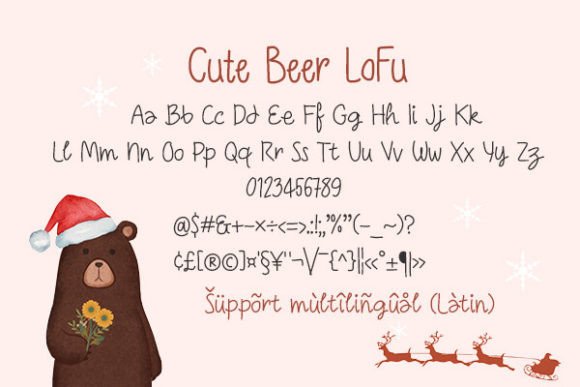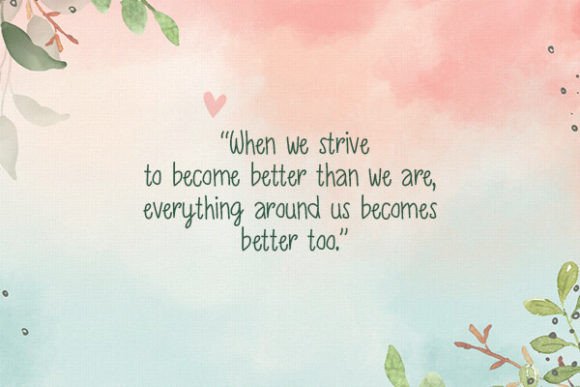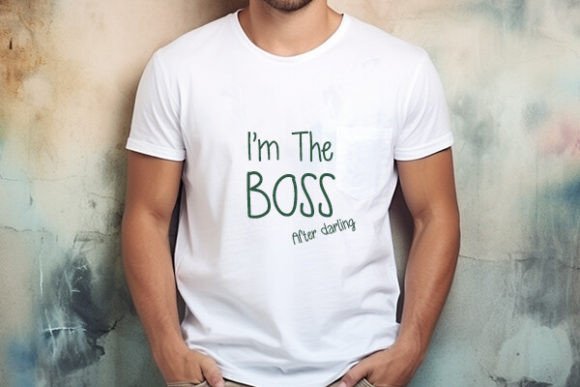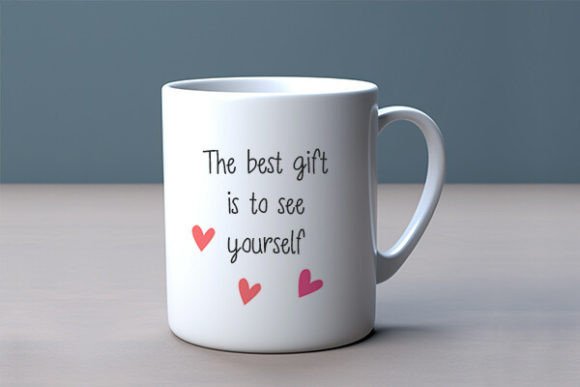
Introduction to Cute Bear Lofu Font
Cute Bear LoFu is designed in a cute and playful sans serif font style.
It’s cheerful and a modern It would be an awsome addition to your fun projects and creative designs.
Key Features of Cute Bear Lofu Font
Why Choose Cute Bear Lofu Font?
Cute Bear Lofu Font offers exceptional quality and versatility, making it a valuable addition to your design toolkit. Whether you’re creating for personal projects or commercial use, Cute Bear Lofu Font delivers professional results.